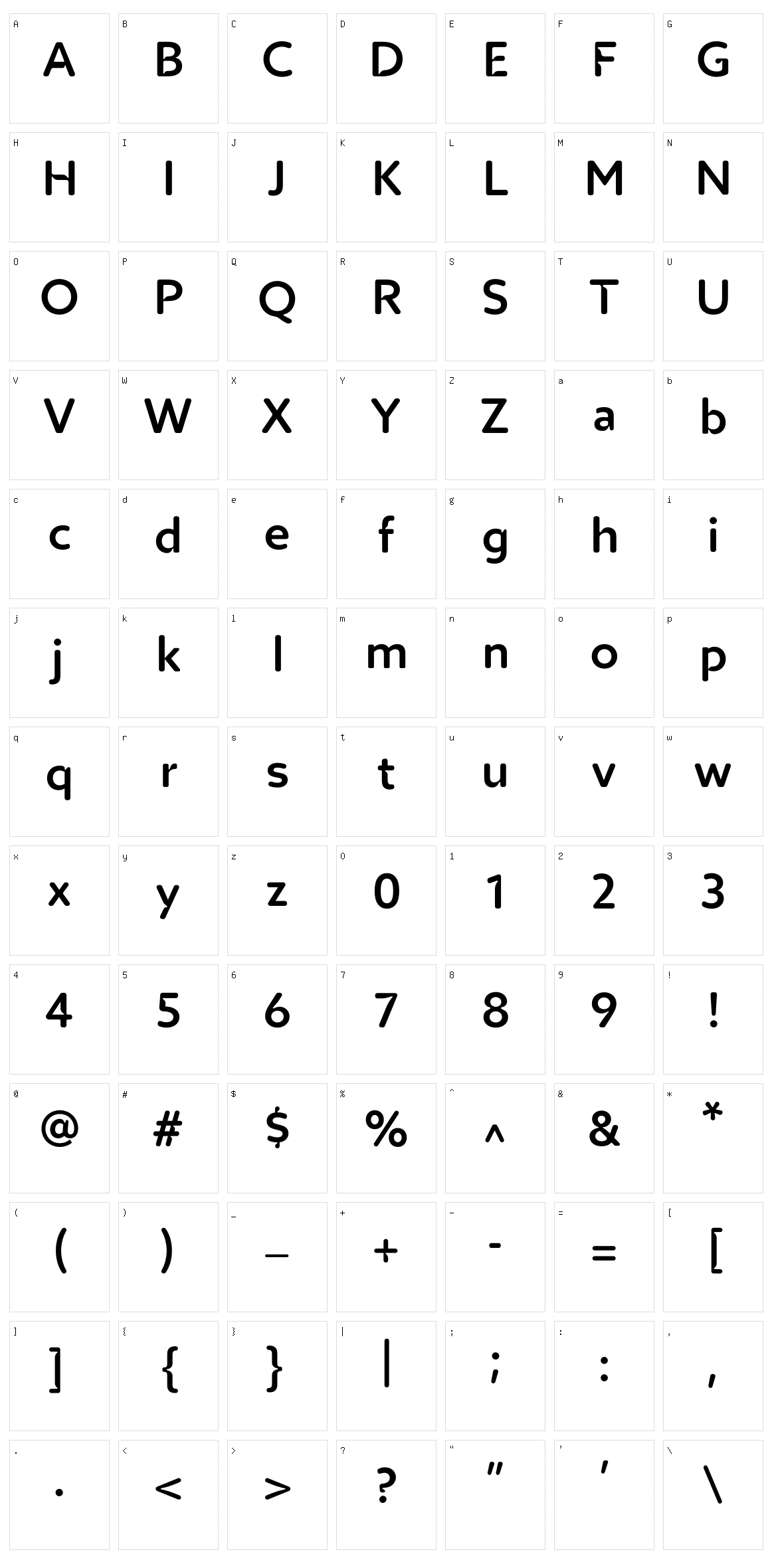
The free font Priborg Sans is carefully designed by Pirated Material, showcasing a thoughtful balance of creativity and usability and falls under the Sans serif font style. When you download the ZIP file, it contains only 32.26 KB of font files, making it lightweight and quick to download. Please review the license details below to understand permitted usage and distribution rights. If license information is not available, we recommend using this font for personal projects only or contacting the author directly for commercial usage permissions.